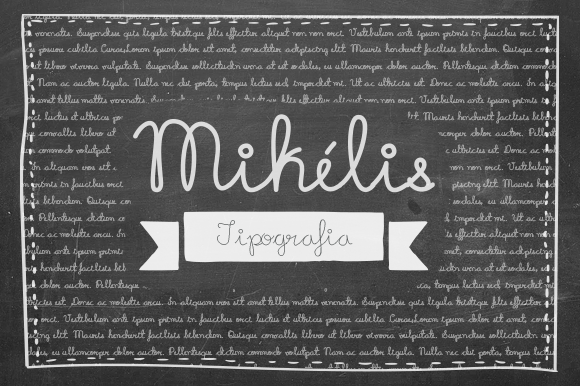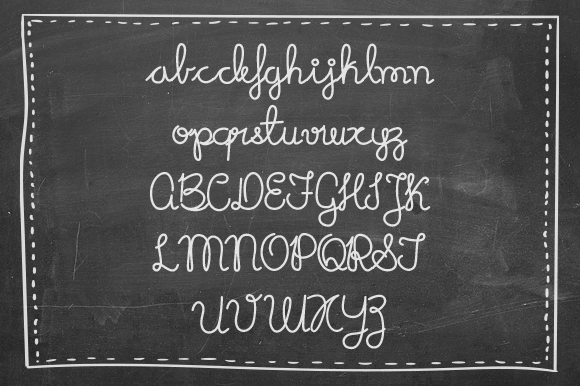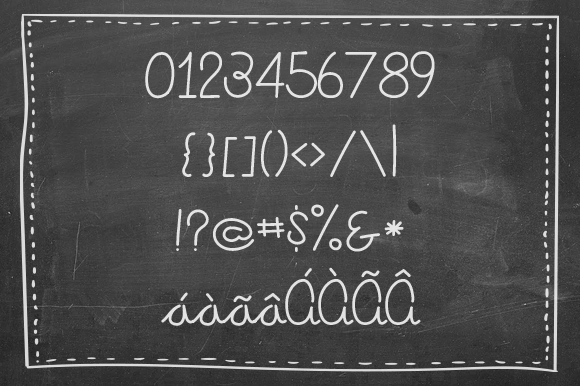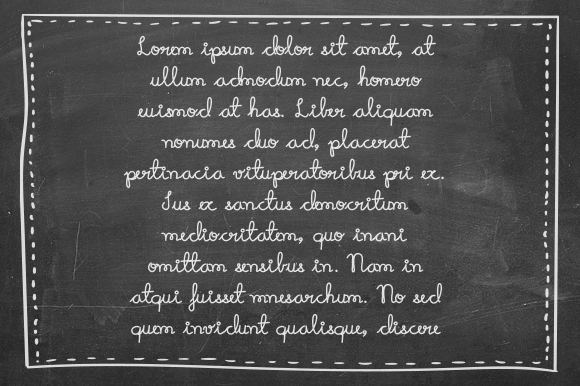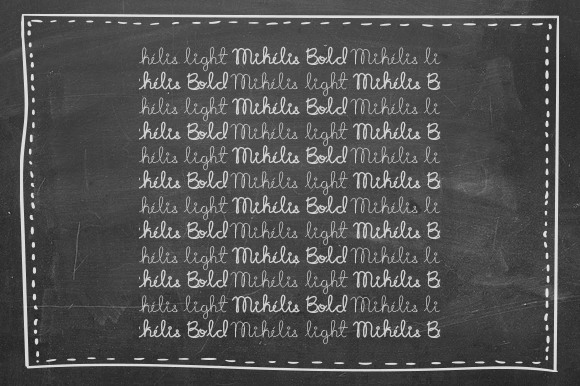
HomeScript FontsMikélis Font Script Fonts Mikélis Font FacebookXPinterestWhatsApp Mikélis Font Poster 2 Mikélis Font Poster 3 Mikélis Font Poster 4 Mikélis Font Poster 5 Mikélis Font Poster 6 About Mikélis Font Mikélis is a classic script with a whimsical vibe. It will add a personal touch to any creative idea. DOWNLOAD NOW People also explored Over Creative Font Diviatan Font Australians Font Redick Font Agnella Medium Font Cherry Font Gathira Font Gromlaith Font Winter Flowers Font 296 0 TagsMikélis Font Previous articleHandnilo FontNext articleRunning Font LEAVE A REPLY Cancel reply Comment: Please enter your comment! Name:* Please enter your name here Email:* You have entered an incorrect email address! Please enter your email address here Website: Save my name, email, and website in this browser for the next time I comment. Personal Use Free Kidly Personal Use Free Read more about this font Rookie Mastering Personal Use Free Read more about this font Vanchrome Personal Use Free Read more about this font Angelitta Personal Use Free Read more about this font BLOG Best Fonts for YouTube Videos: Make Your Thumbnails Stand Out Best Fonts for YouTube Videos: Make Your Thumbnails Stand Out Choosing the right font can make a massive difference in how your YouTube videos perform.... Modern Sans-Serif Fonts That Brands Love in 2025 Top 7 Google Fonts Alternatives for Faster and Privacy-Friendly Web Design (2025) 5 Fonts That Will Dominate Design Trends in 2026